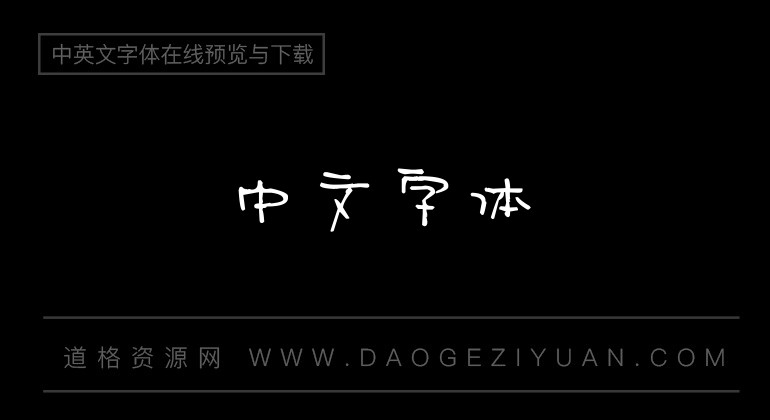
Chen Jishi-Gaiweiti is a Chinese font designed by Chen Jishi and released in 2018. It is a handwritten font with a rustic, rough style and is extremely expressive, and can be used in various headlines, logos, advertisements, and more. Its glyph design is inspired by ancient Chinese monsters, but it incorporates modern design elements to make it have a more modern appearance and can more effectively convey the design information.Content introduction
Chen Jishi-Monster Body is a very good handwriting art font, with a good visual sense, suitable for cultural propaganda design, commercial brand advertising and product packaging design and personalized text typesetting and other more scenes.